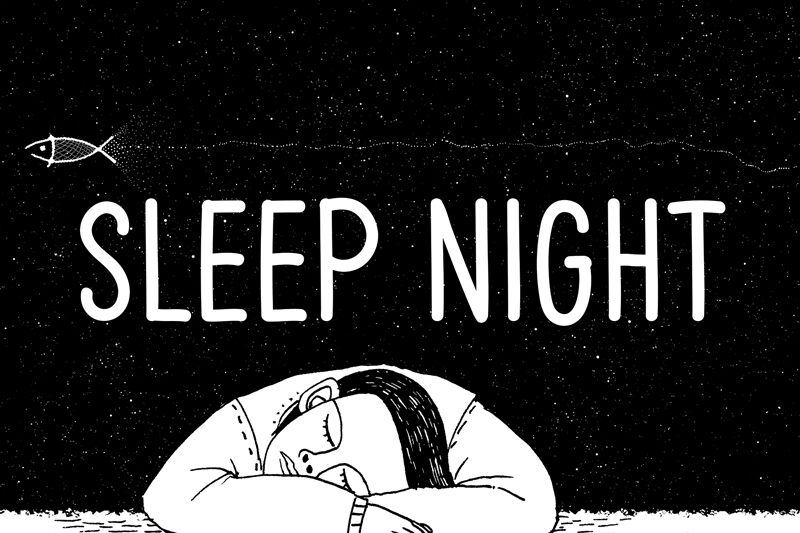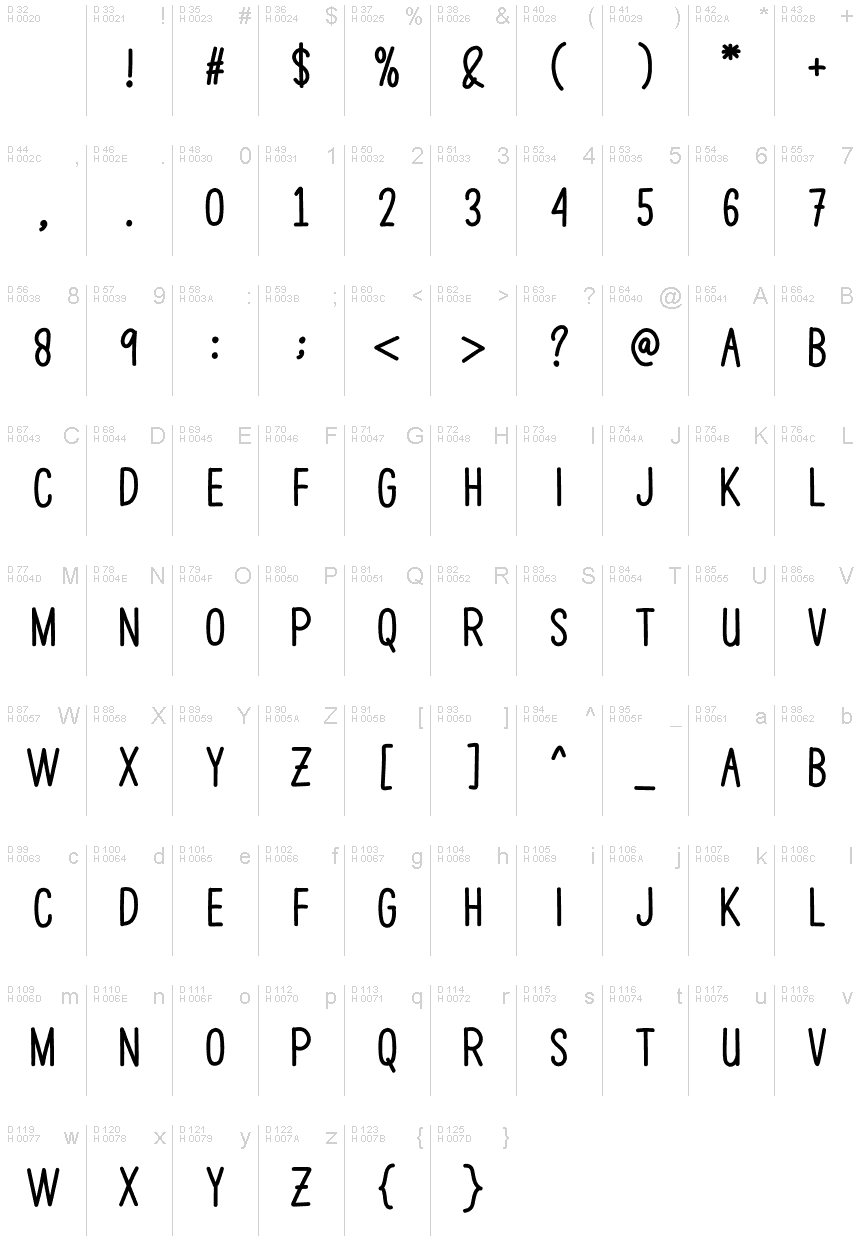
Sleep Night
the latest style letters are perfect for wall displays, wedding invitations, social media post logos,
advertisements, product packaging, product designs, labels, photography, watermarks, invitations, stationery,
and any project that requires taste handwriting.